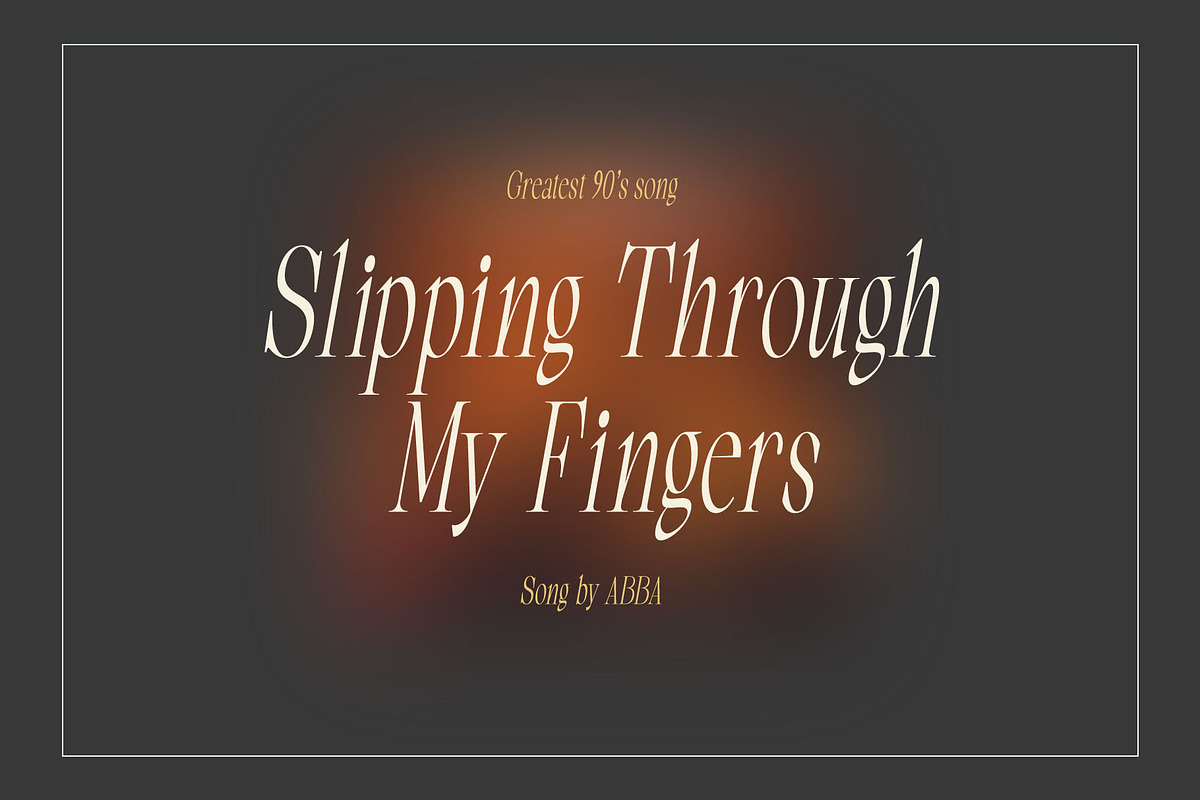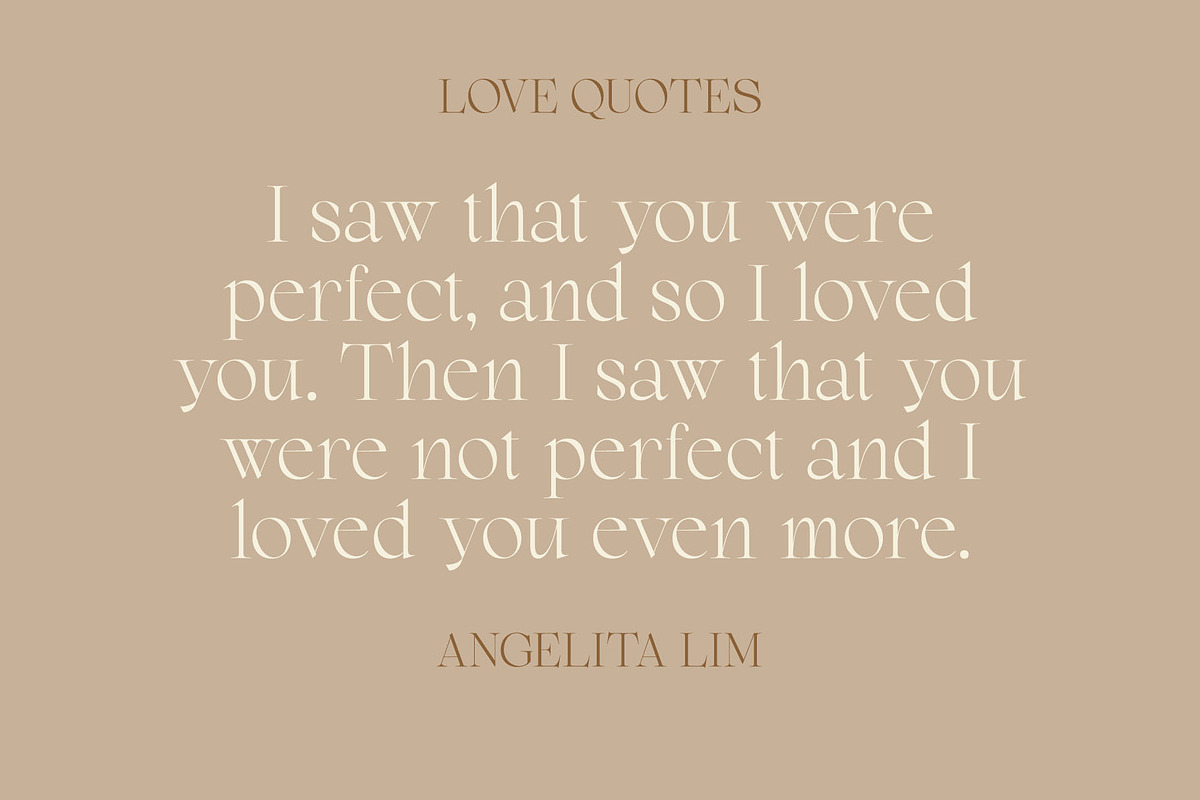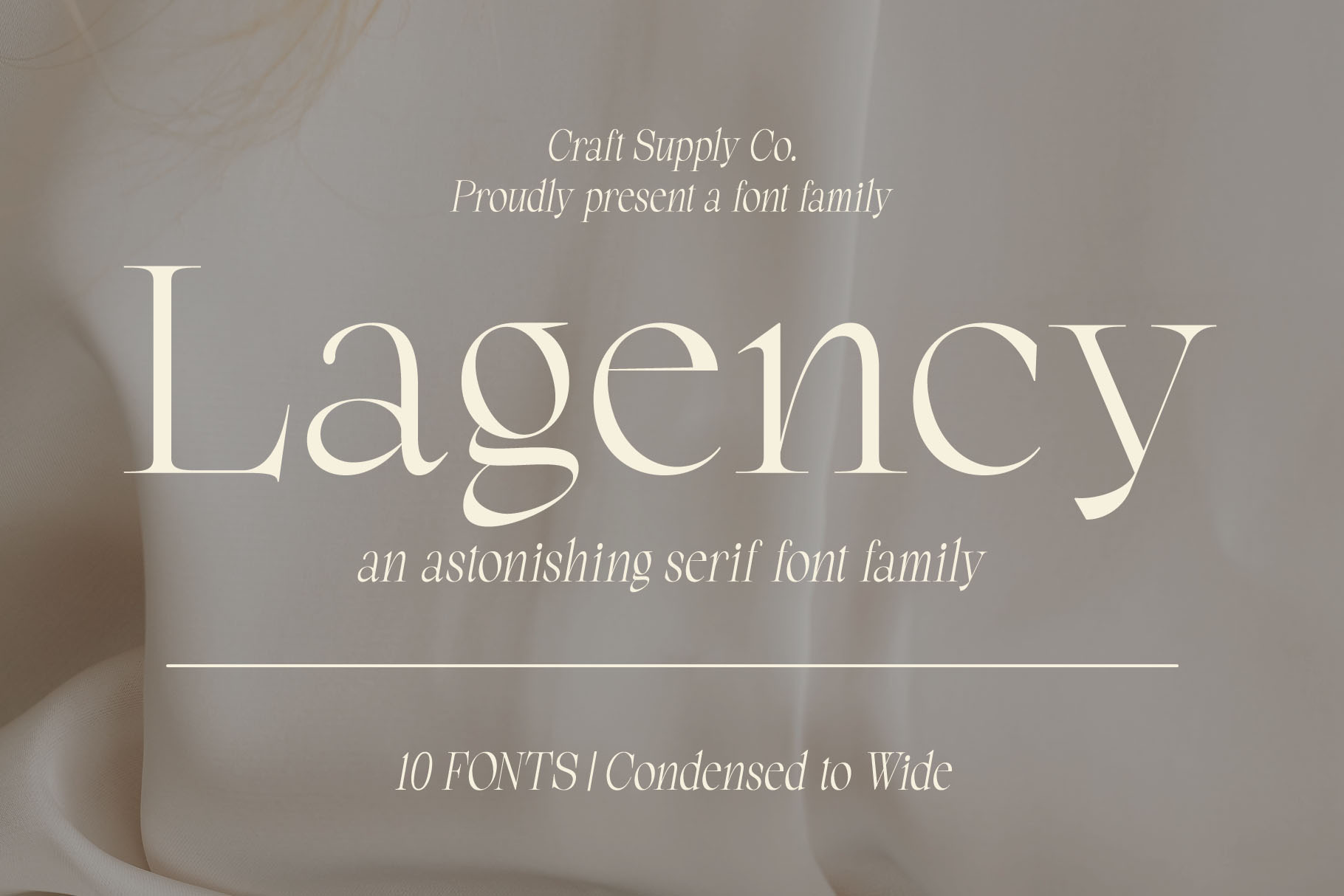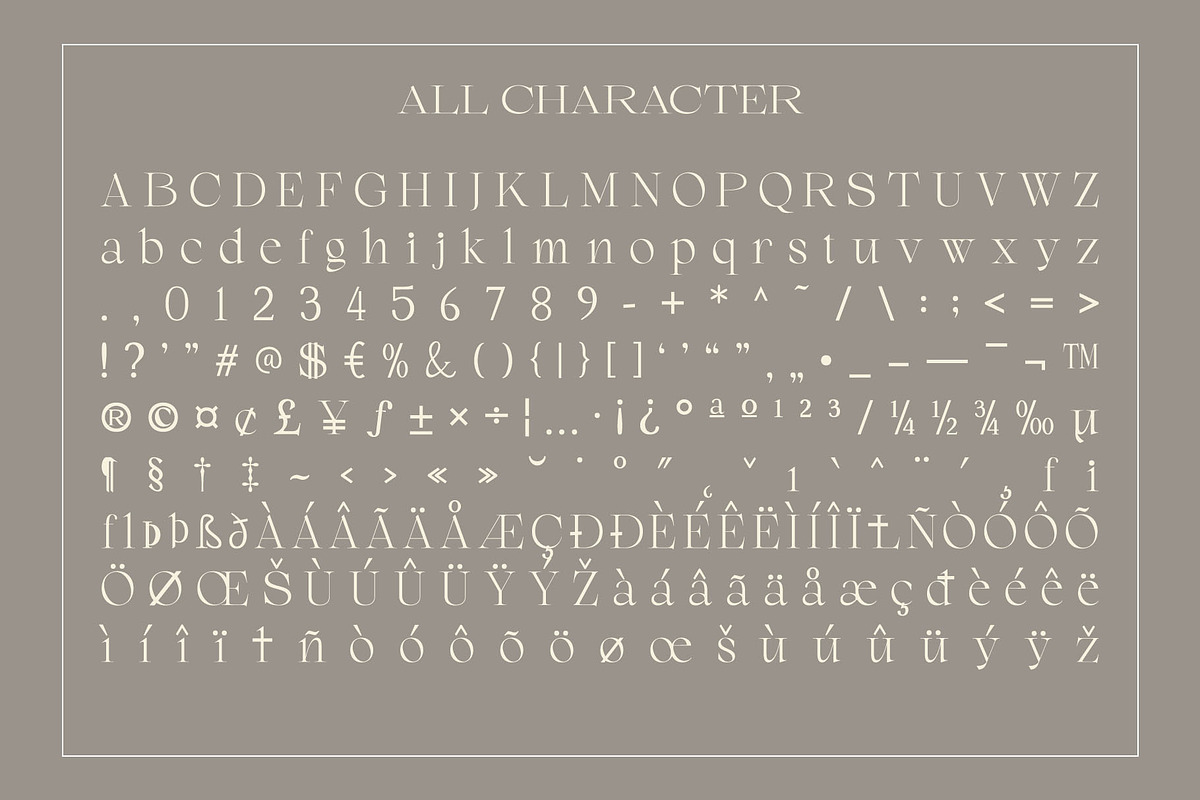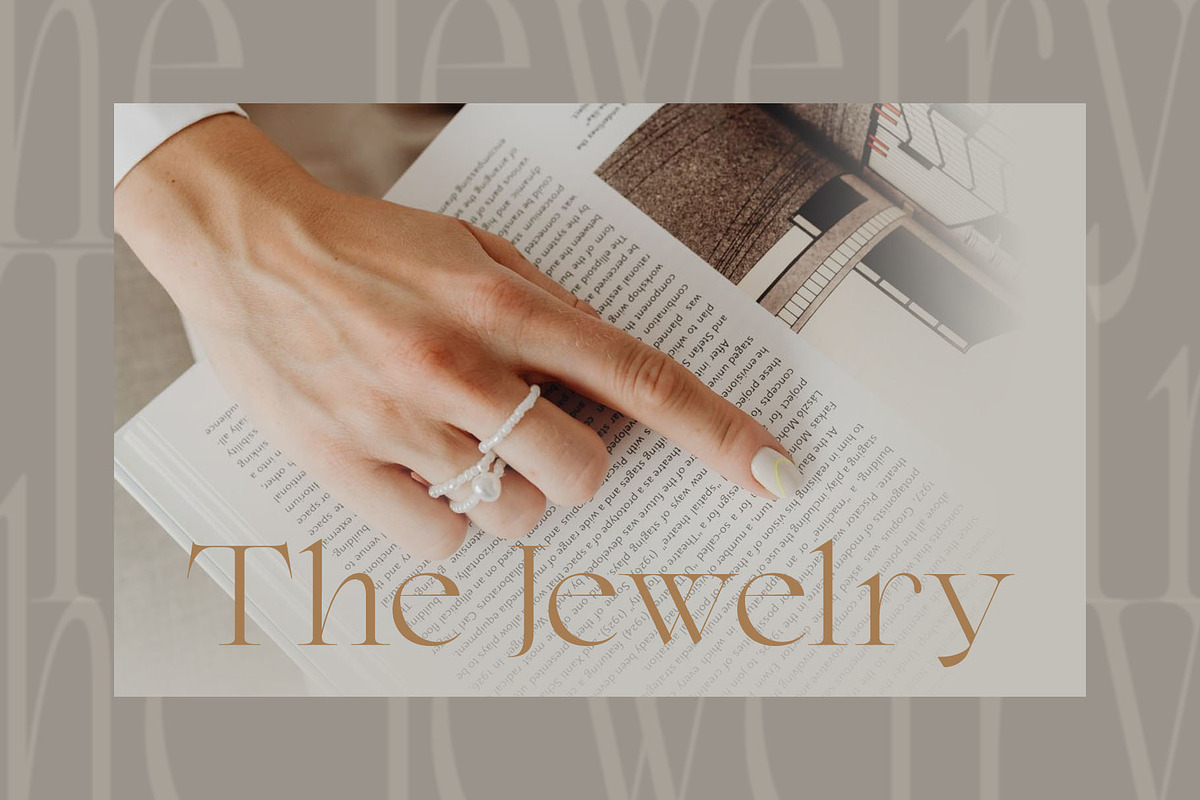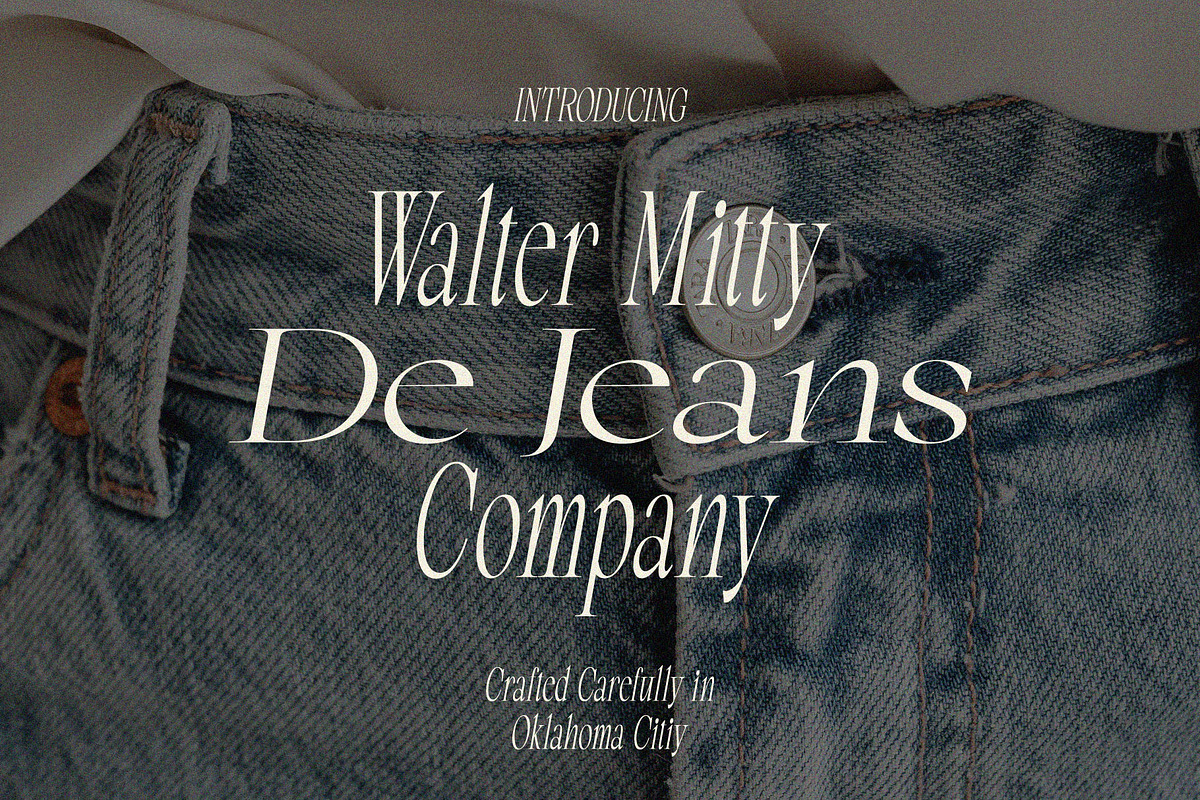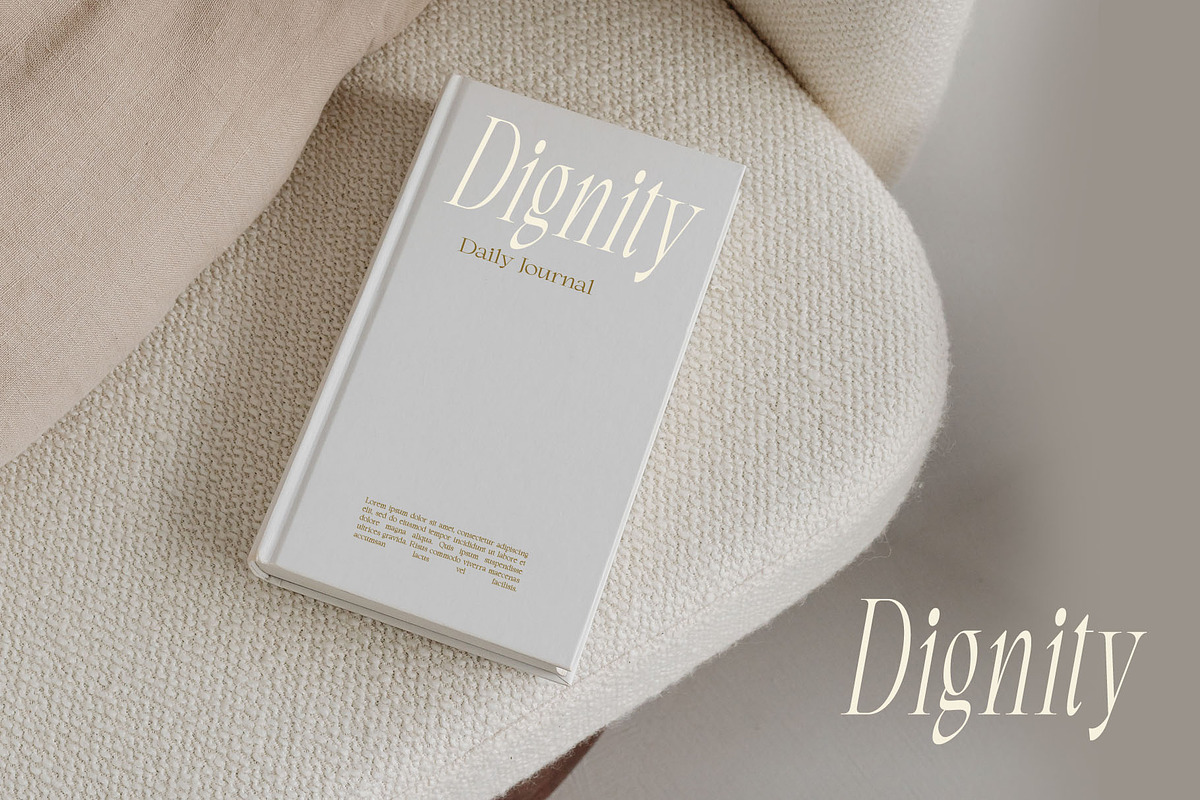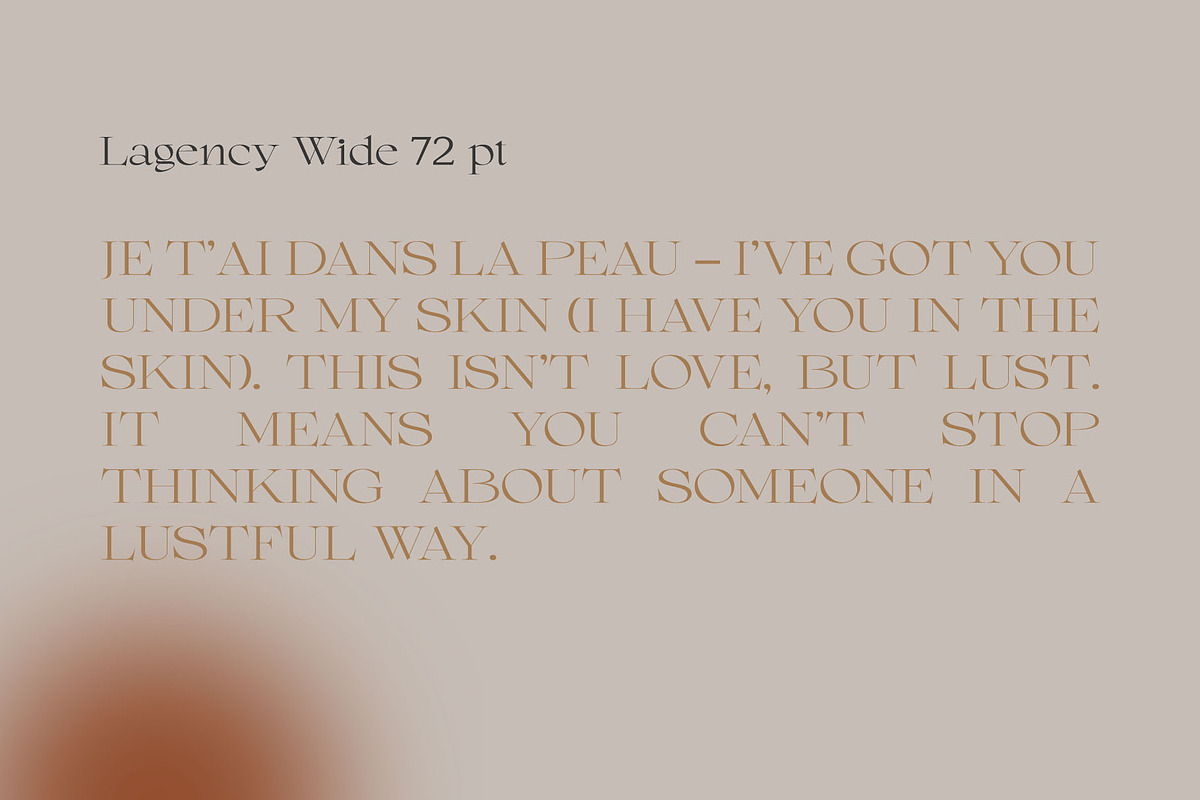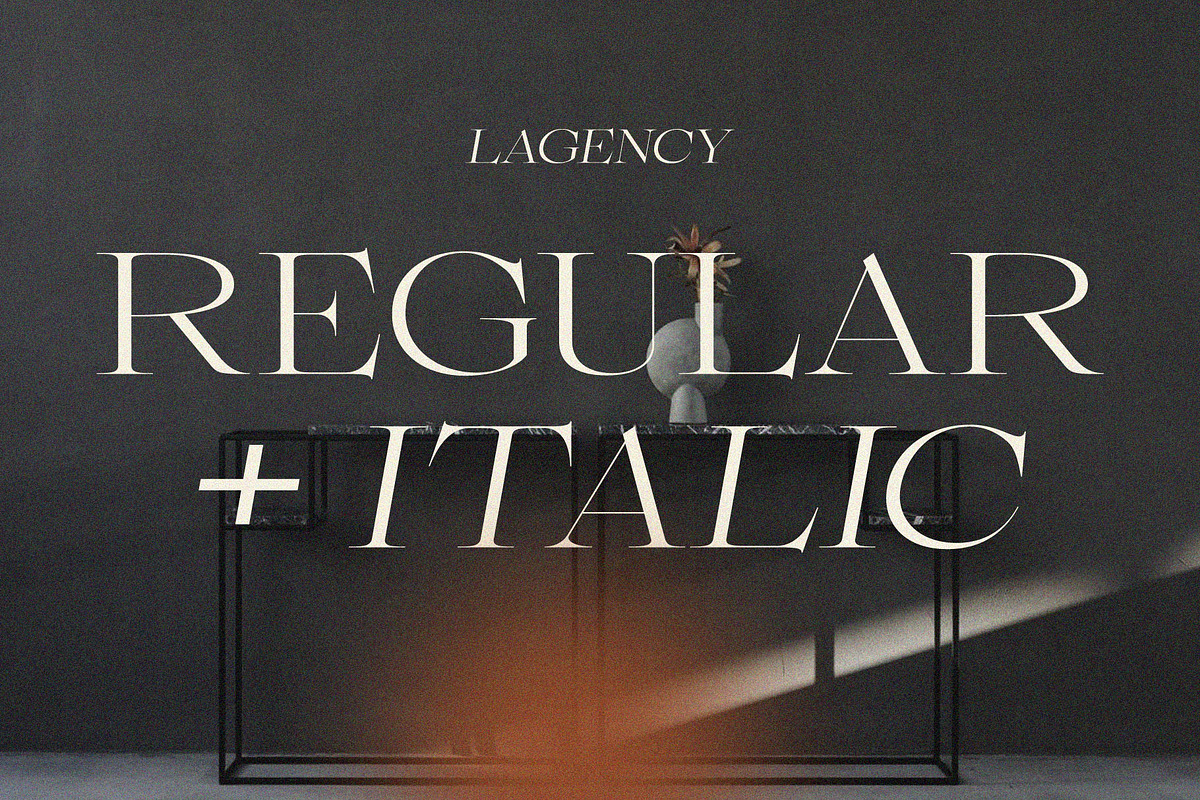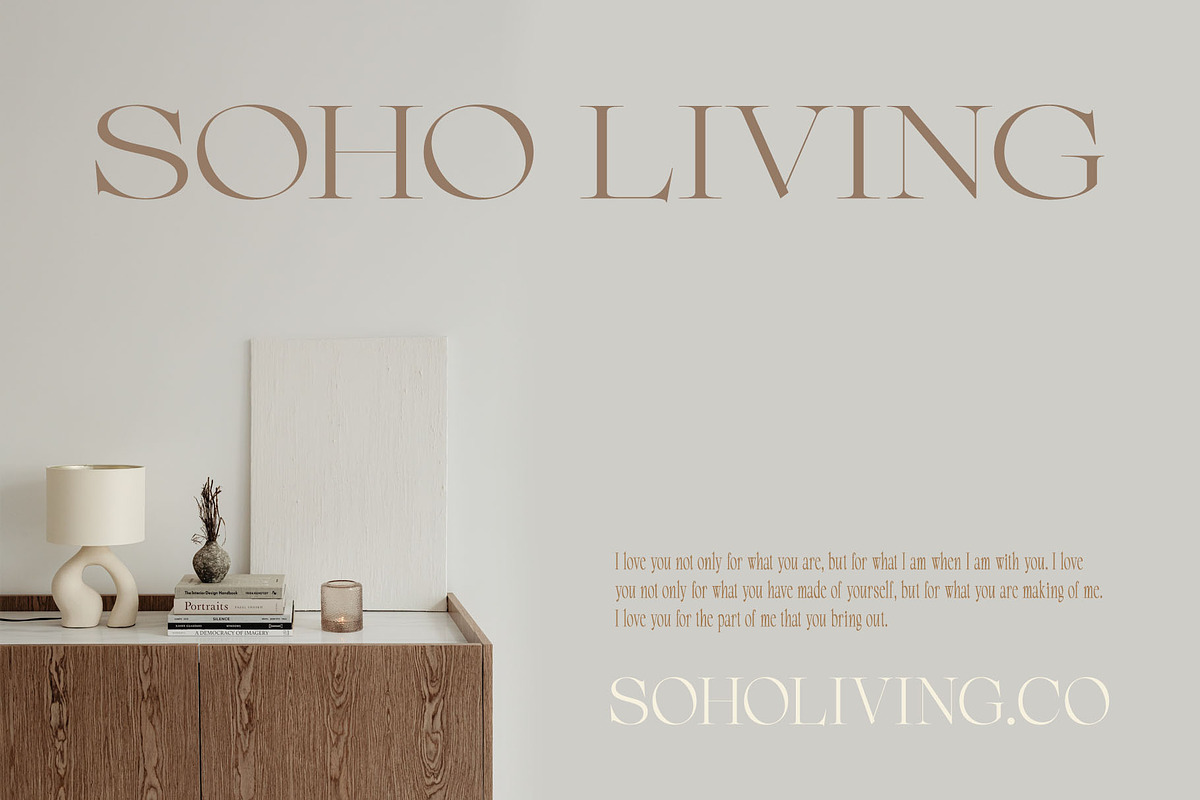
Lagency - Elegant Serif | 10 Fonts
Introducing Lagency - Font Family | 10 Fonts
Lagency is an astonishing serif font that contains 10 styles, from condensed to wide. With its versatile style options, Lagency is perfect for a variety of applications, including print, web, and logo design.
Lagency has been designed with love and care by graphic designers who understand the need for versatility in a font. Its clean lines and impressive typography make it perfect for use in print or web projects alike. Whether you're looking for a legible typeface that can hold its own on big screens or want something special to add some character to your logos and other graphics, Lagency has you covered.
- Lagency Condensed
- Lagency Condensed Italic
- Lagency Semi Condensed
- Lagency Semi Condensed Italic
- Lagency Regular
- Lagency Italic
- Lagency Semi Wide
- Lagency Semi Wide Italic
- Lagency Wide
- Lagency Wide Italic